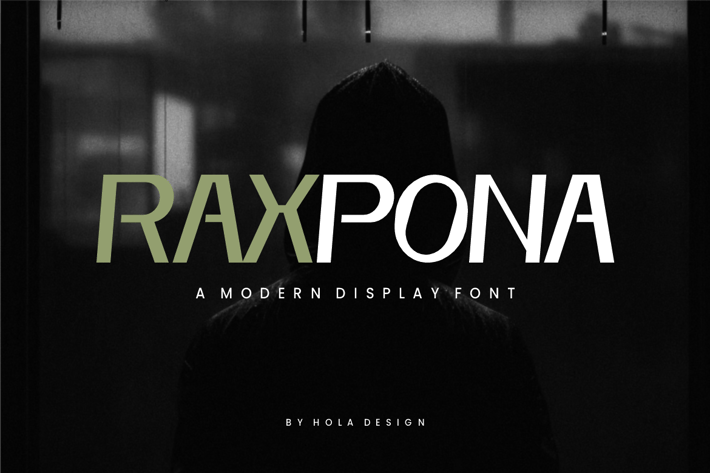
Raxpona - Modern Display Font
Raxpona - Modern Display Font Font is unique . Ready to use for your design like labeling, movie sceen, poster, movie title, gigs, album covers, logos, and much more.